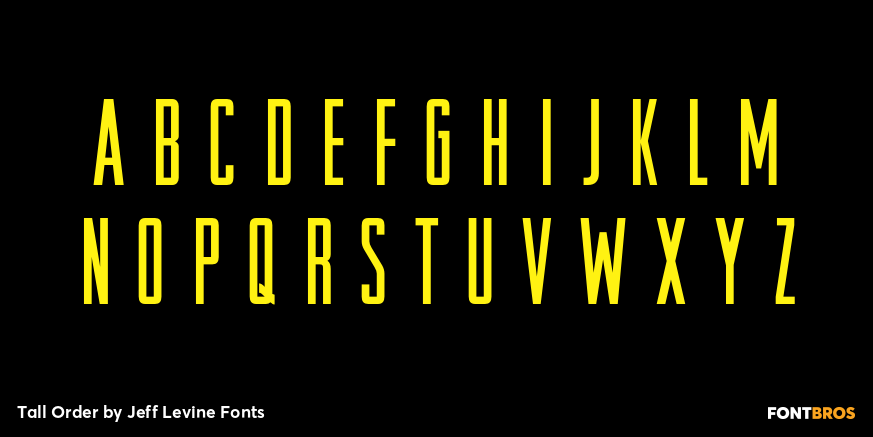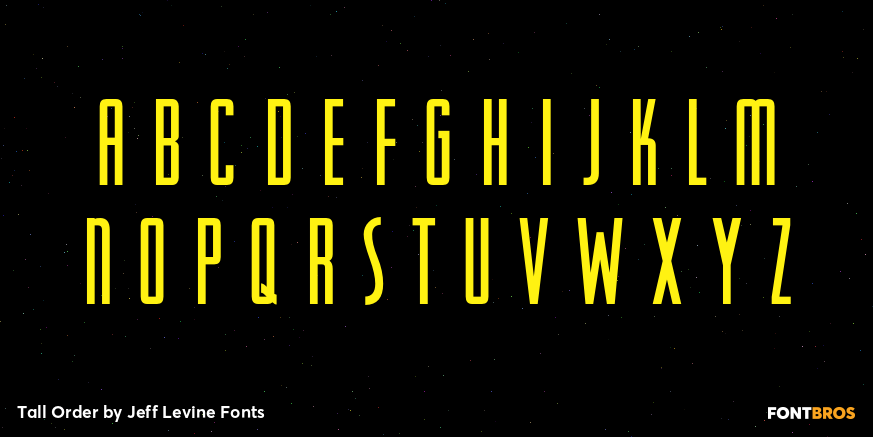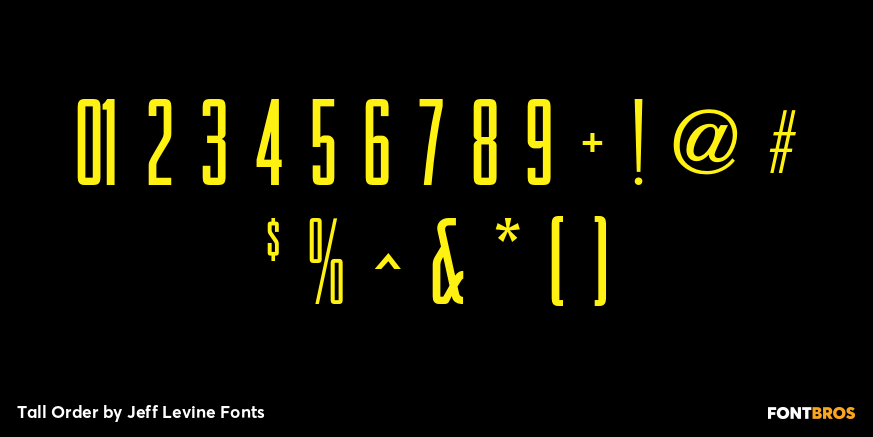
Tall Order
The condensed style and square character shapes of a vintage typeface originally known as Raleigh has been re-interpreted by Jeff Levine Fonts as Tall Order JNL.
There is an alternate A, K, M, N and S on the respective lower case keys.